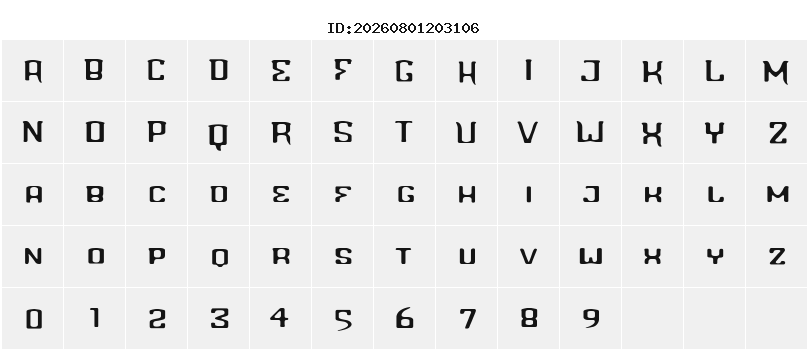
• Font Name: L
• Full Font Name: LBlinddate
• PostScript Name: LBlinddate
About L.ttf
L.ttf is a modern, elegant sans-serif font designed for ultimate readability and visual harmony. Perfect for branding, headlines, web design, and print materials.